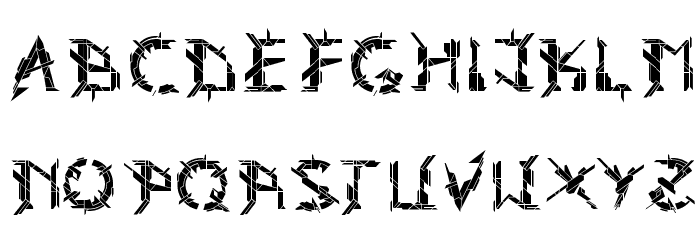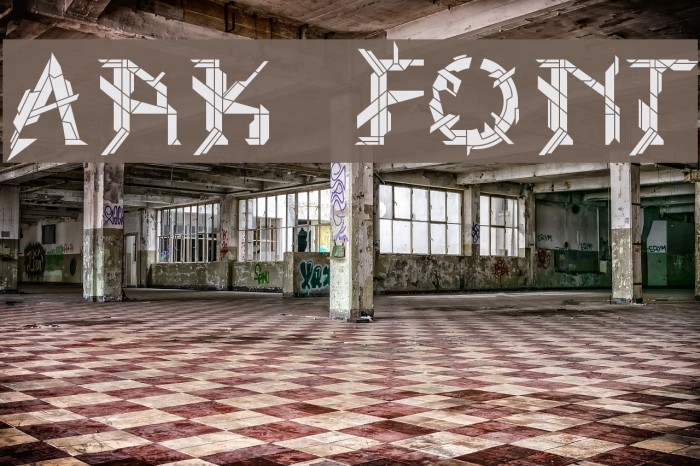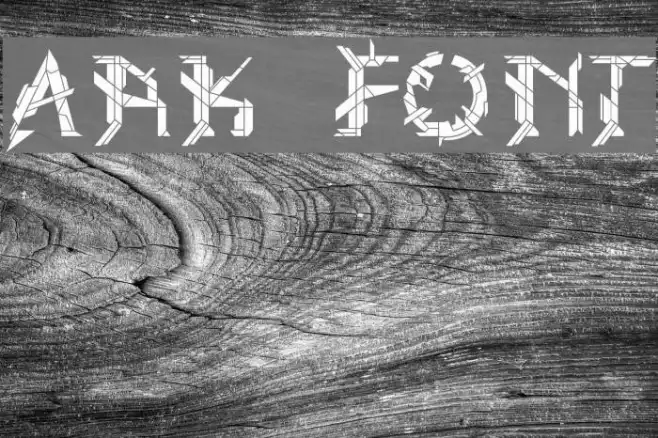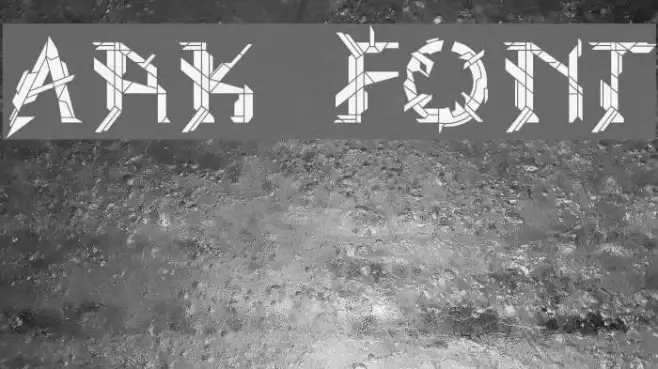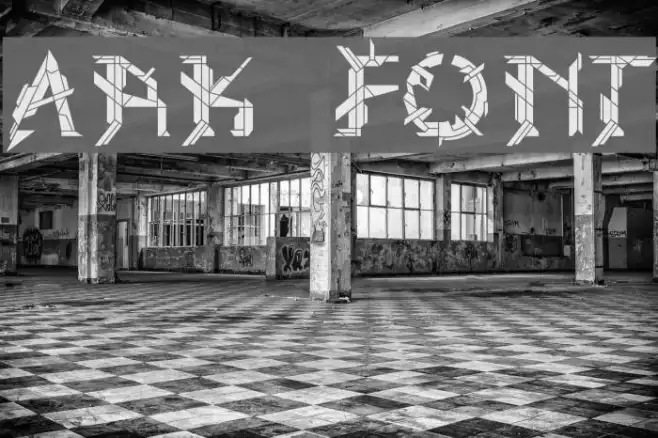
Ark Font
This font features a highly decorative and angular design, characterized by sharp, geometric shapes that create a fragmented appearance. Each character is composed of intersecting lines and triangular forms, giving it a dynamic and edgy look. The style is reminiscent of shattered glass or abstract art, making it stand out with its bold and unconventional aesthetic. The font maintains a consistent structure across all characters, ensuring readability while still embracing its unique artistic flair. It is particularly suitable for projects that require a modern and avant-garde touch, such as album covers, posters, or branding for cutting-edge products.
A decorative, angular font with a fragmented, geometric design.
- Proposed Projects: Ideal for album covers, posters, avant-garde branding, and modern art projects.